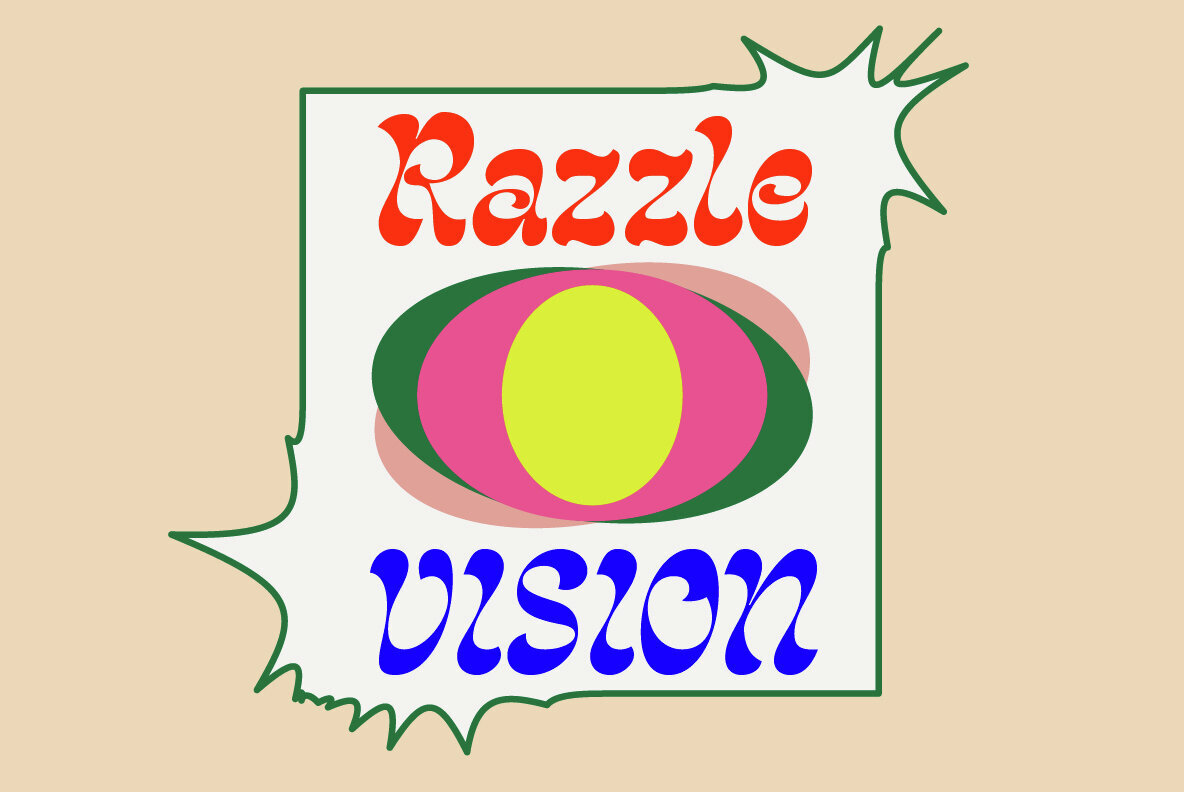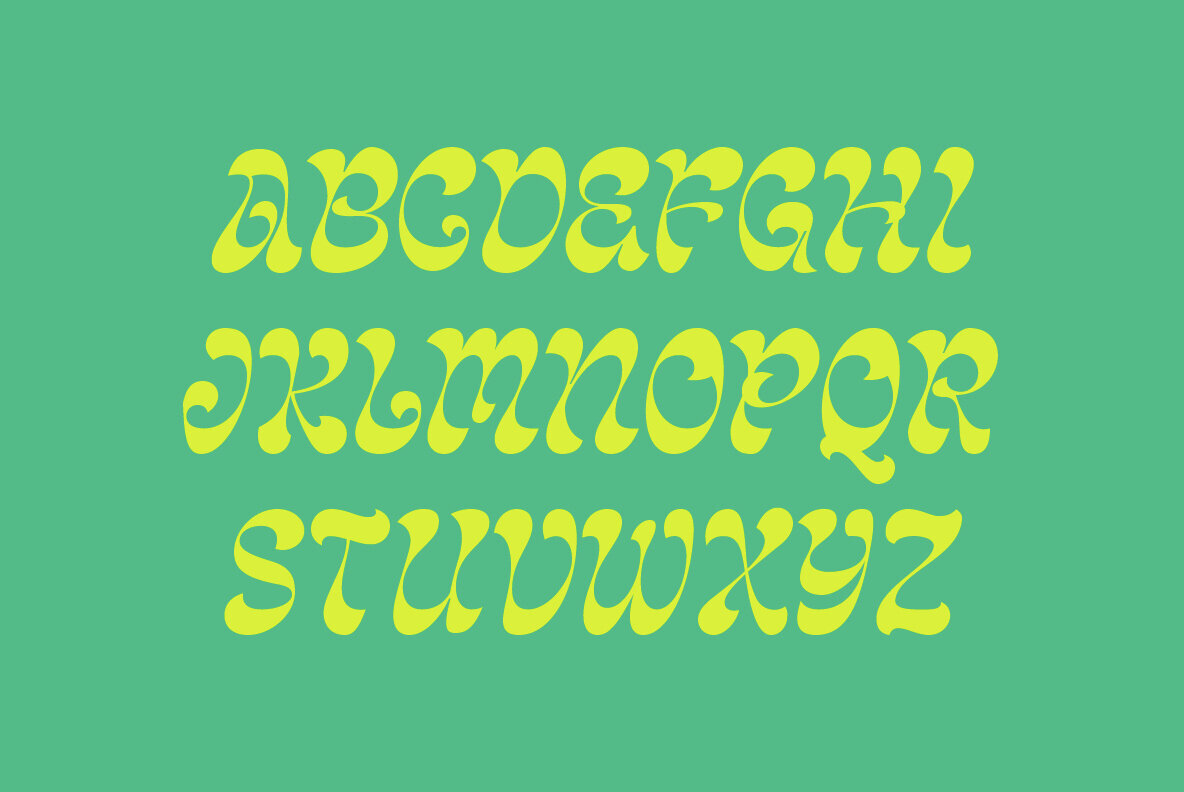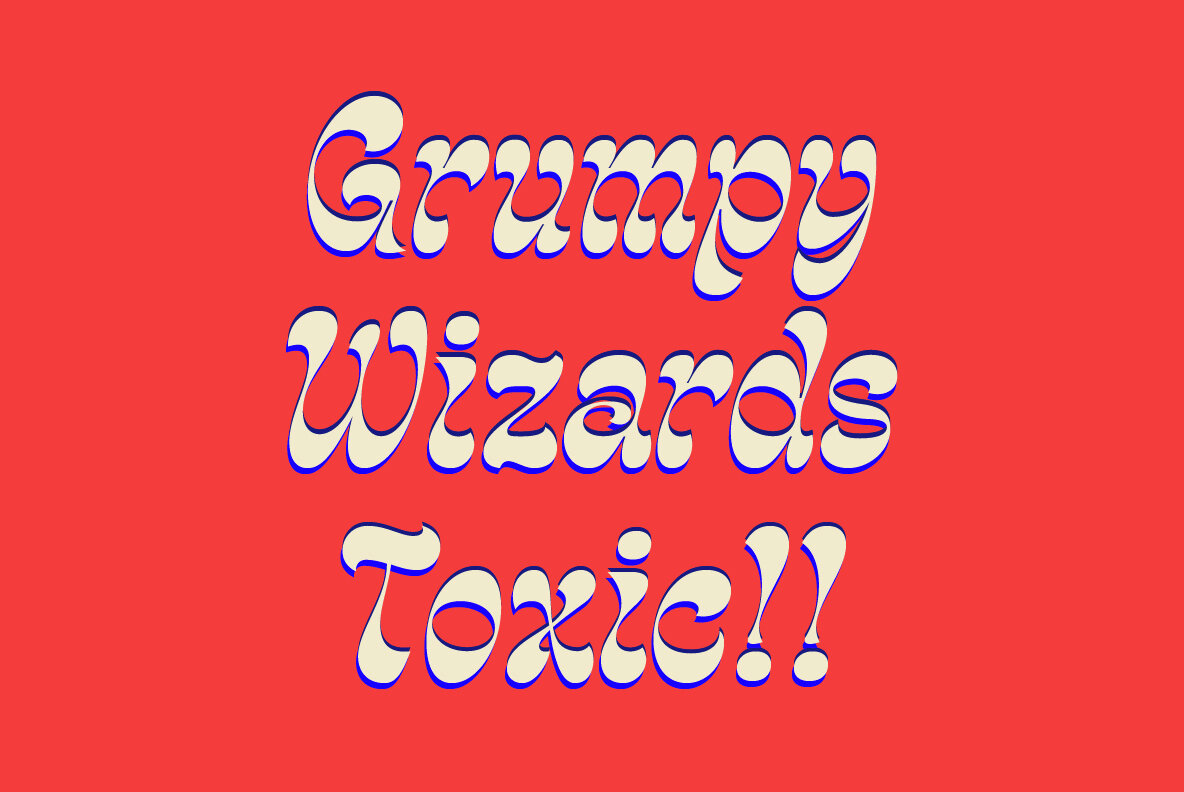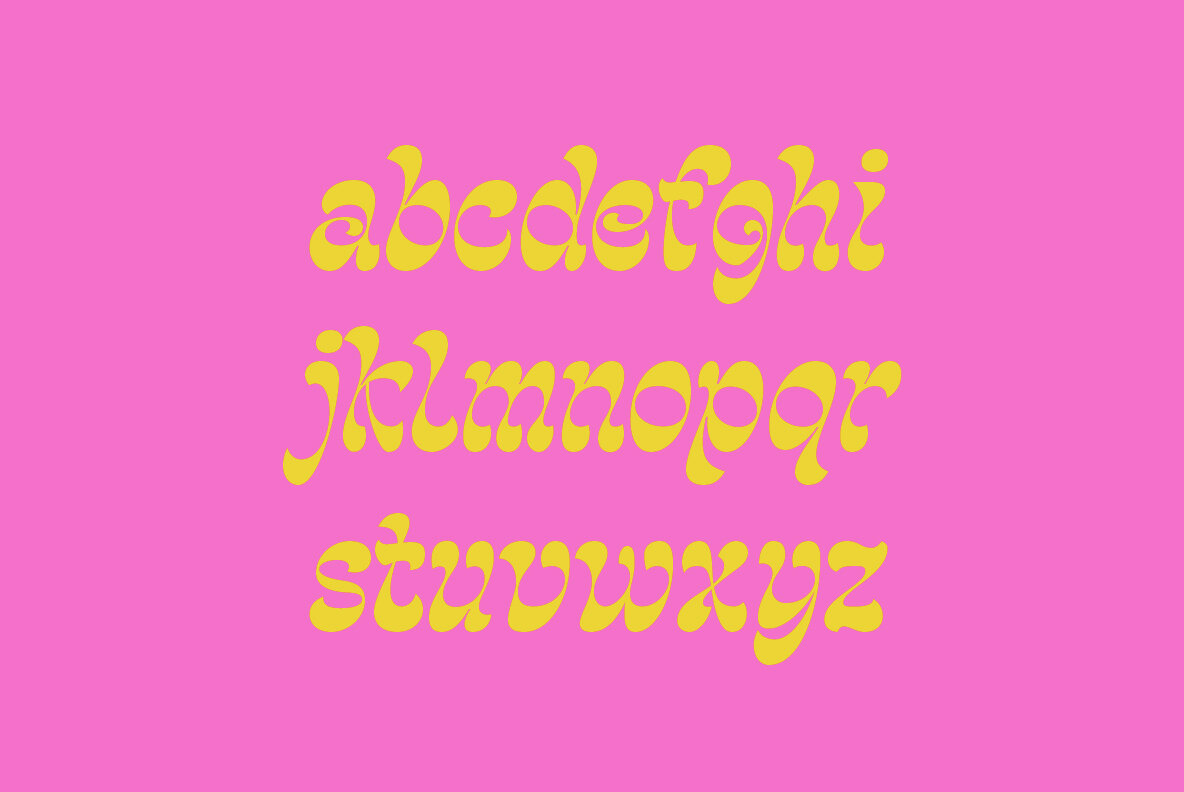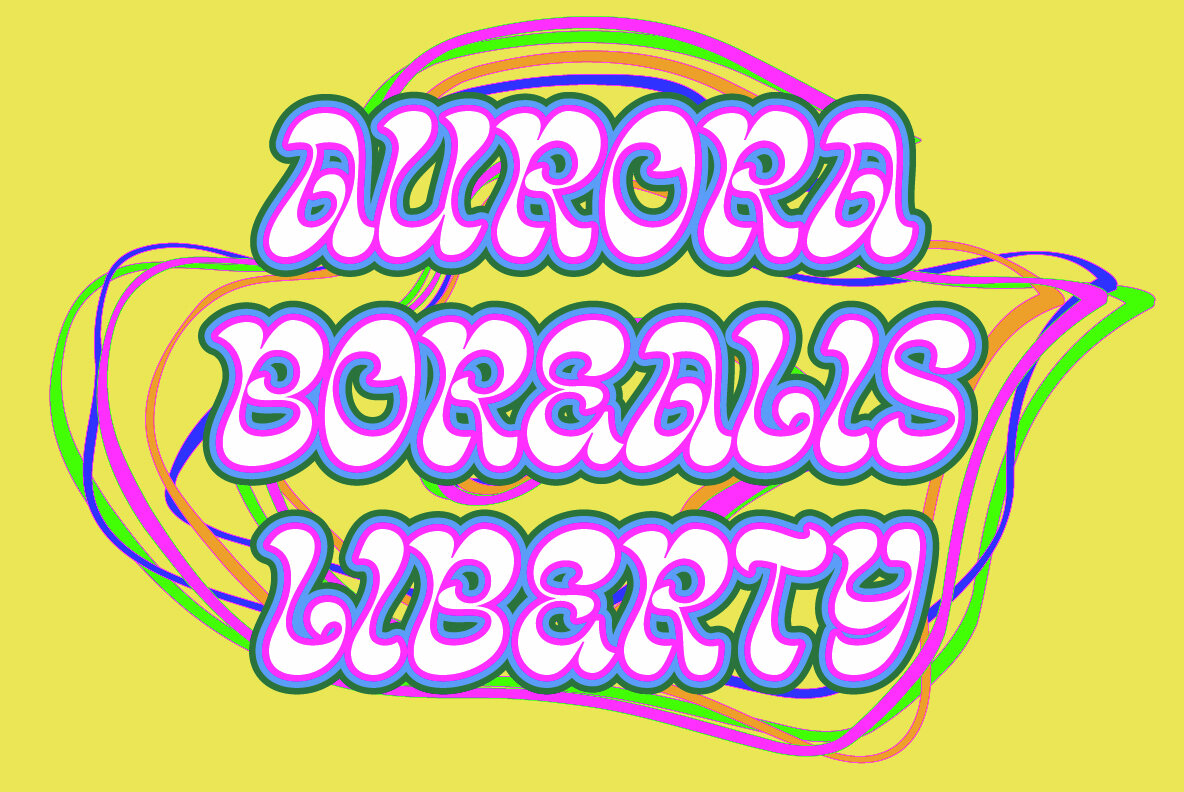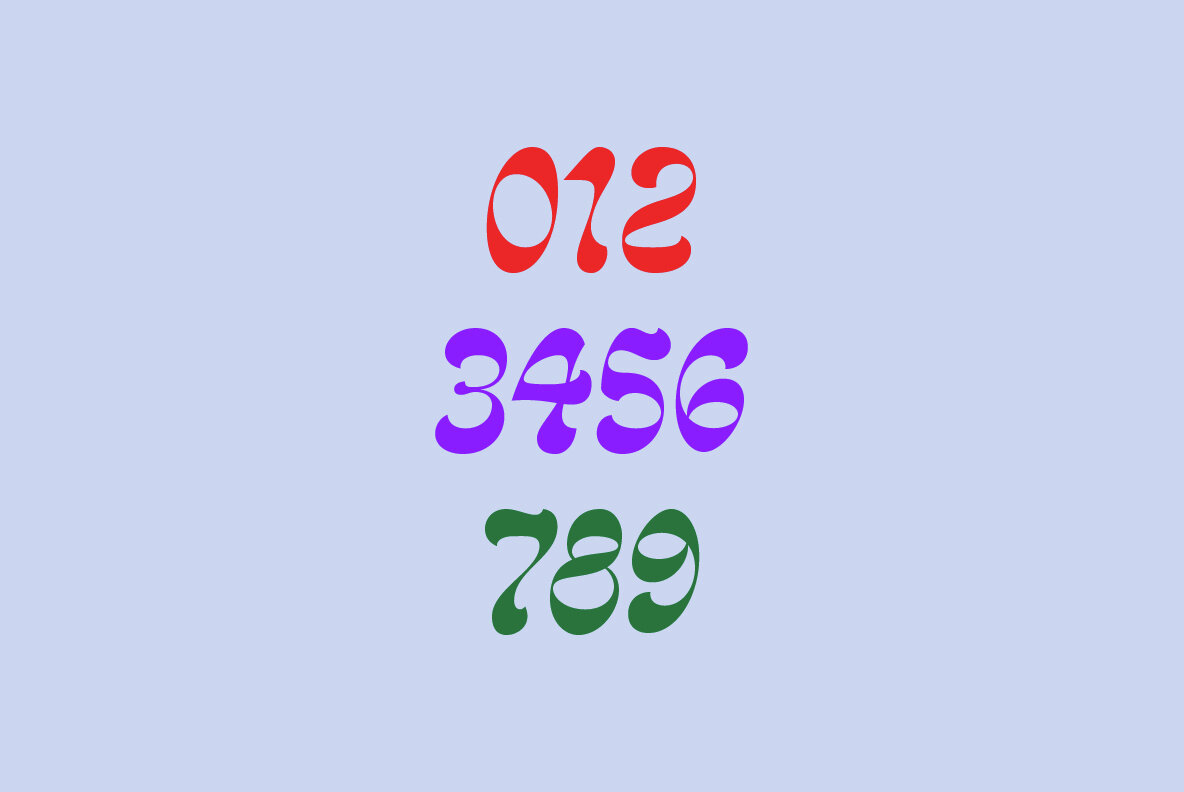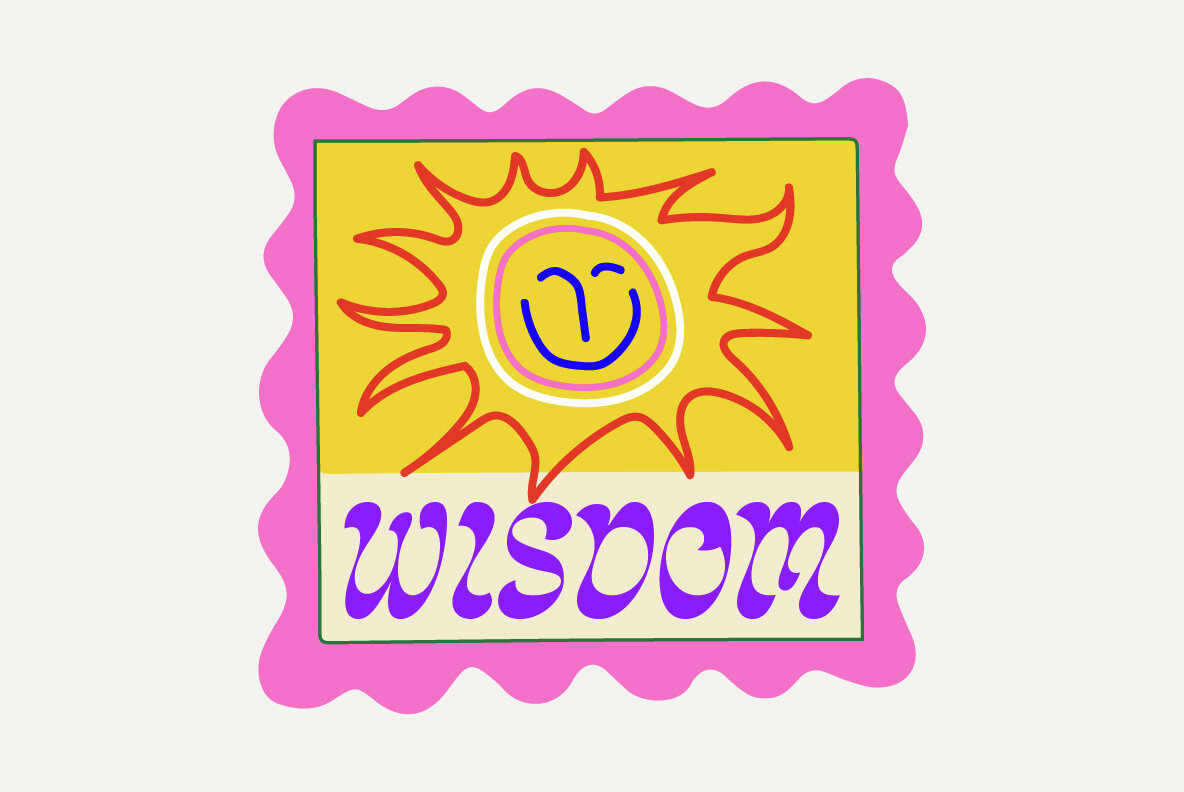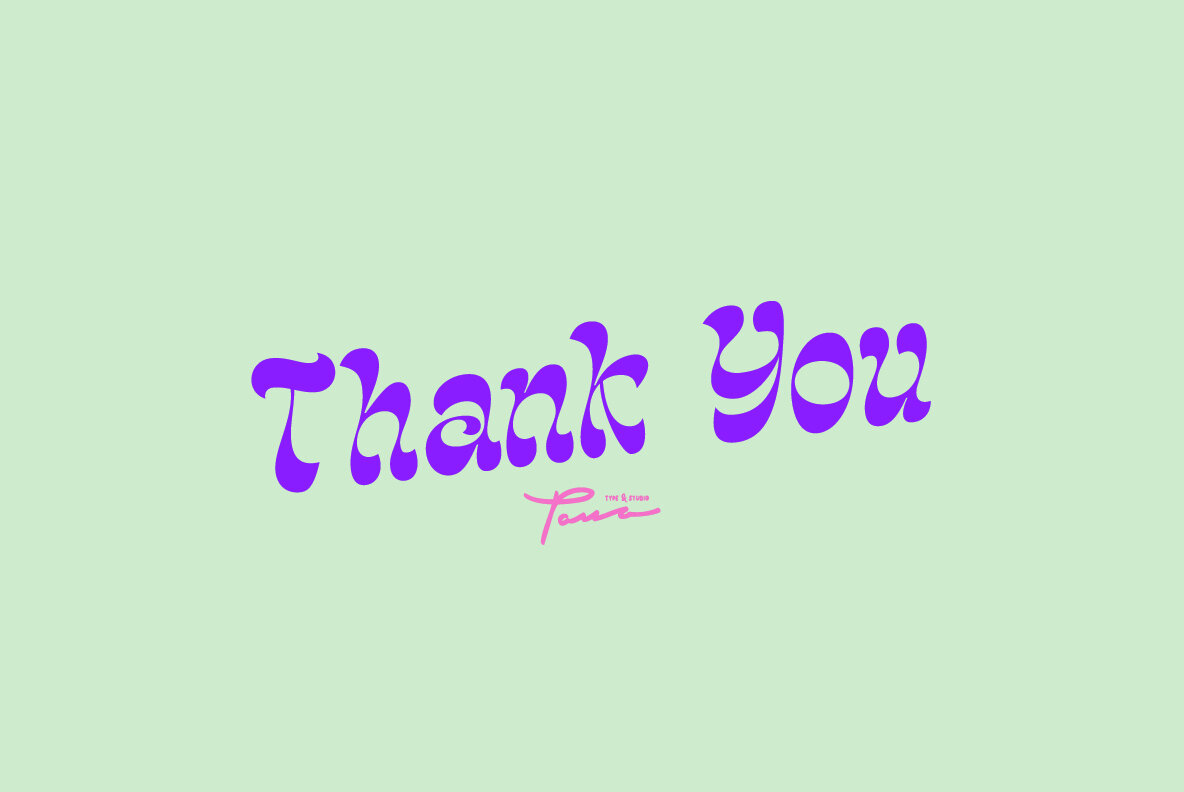
Luizane: Psychedelic-Inspired Typeface
Luizane is a typeface that draws inspiration from psychedelic design. This retro, bold, and playful font is perfect for projects that aim to infuse a sense of fun and energy. Meticulously crafted, Luizane meets all your graphic design needs, offering versatility and a unique aesthetic.
Character Set
Luizane supports Latin Extended, covering Western European, Central European, and South Eastern European languages.